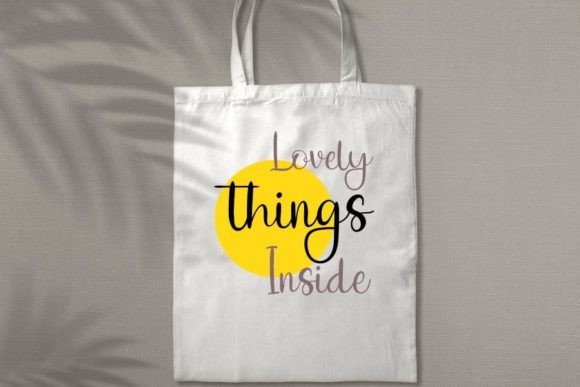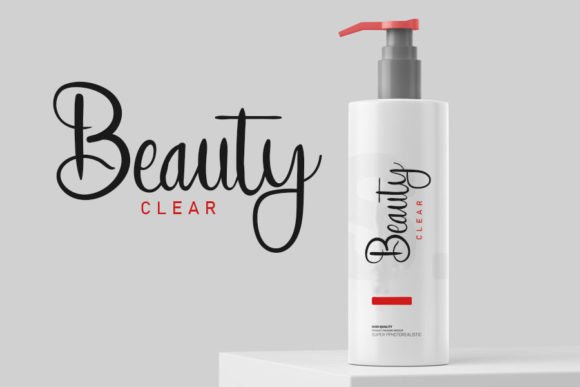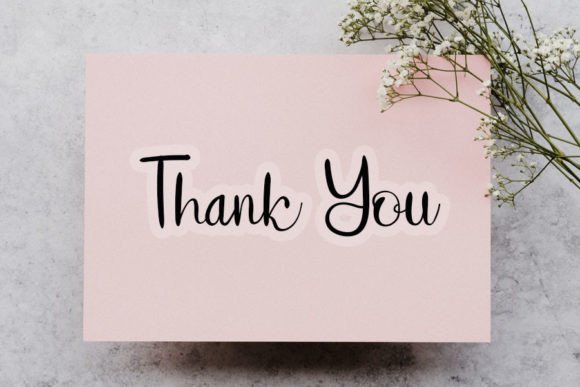
Unleash Your Creative Side with the Timeless Charm of Calligraphy Font
You know that moment when you’re brainstorming ideas for a new project, and suddenly, a spark of inspiration strikes? The room lights up, and your imagination runs wild. For many designers, that spark often comes in the form of a beautifully crafted font. And when it comes to adding a touch of elegance to your work, Calligraphy Font is the perfect tool to have in your arsenal.
With its distinctive, handwritten style, Calligraphy Font is the ultimate go-to for designers who want to create stunning, eye-catching designs that leave a lasting impression. Whether you’re working on a wedding invitation, a branding campaign, or a special occasion graphic, this font is sure to bring a level of sophistication and charm that’s hard to resist. Its timeless style makes it a valuable asset for designers who want to elevate their work and make a lasting impact.
Key Features of Calligraphy Font
- Unique Characteristics: The calligraphy font features intricate, handwritten letterforms with flourishes and swashes, adding a touch of elegance and sophistication to any design.
Designer Review: Calligraphy Font
Overall, I think the Calligraphy Font is a beautiful addition to any design project. ✨ It has a classic, elegant feel that can instantly elevate the look of a document or website. The intricate strokes and flourishes add a level of sophistication that’s hard to achieve with more generic fonts.
- The fluidity of the font makes it perfect for titles, headings, and other prominent text elements. ✨
- The Calligraphy Font is highly customizable, allowing designers to fine-tune the spacing, size, and color to fit their specific needs. ✨
- It’s a versatile font that works well for both digital and print projects, making it a valuable addition to any designer’s toolkit. ✨
Limitsations:
- The font can be quite busy, making it difficult to read in certain contexts. ⚠️
- The Calligraphy Font may not be the best choice for body text, as it can be quite tiring to read in large quantities. ⚠️
- The font may require some additional styling to make it look its best, especially in digital applications. ⚠️
Overall, I think the Calligraphy Font is a great choice for designers looking to add a touch of elegance to their projects. While it may have some limitations, its beauty and versatility make it a valuable addition to any design toolkit.
Tips for Getting the Most Out of Calligraphy Font
Use calligraphy font to add a touch of elegance and sophistication to your designs.
Experiment with different font styles and sizes to create a unique look.
Combine calligraphy font with other design elements, such as illustrations or graphics, to create a visually appealing design.
Special occasion cards and gift tags
Restaurant and cafe menus
Wedding and event signage